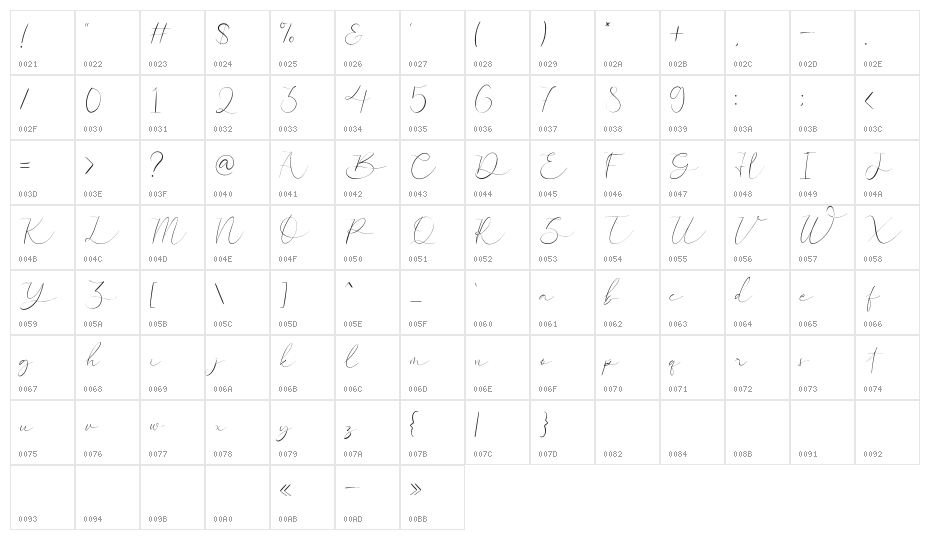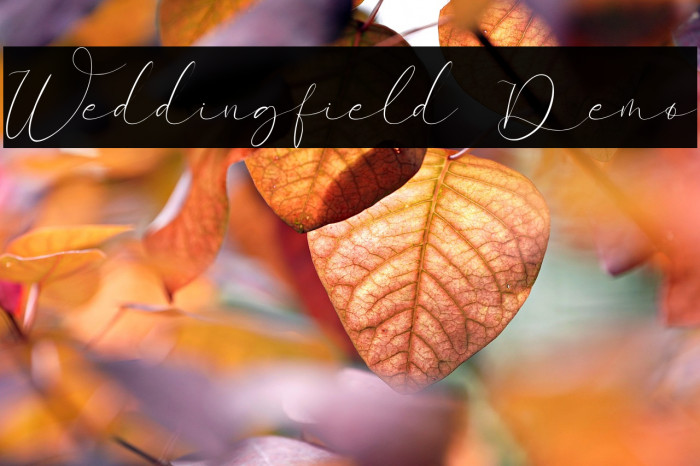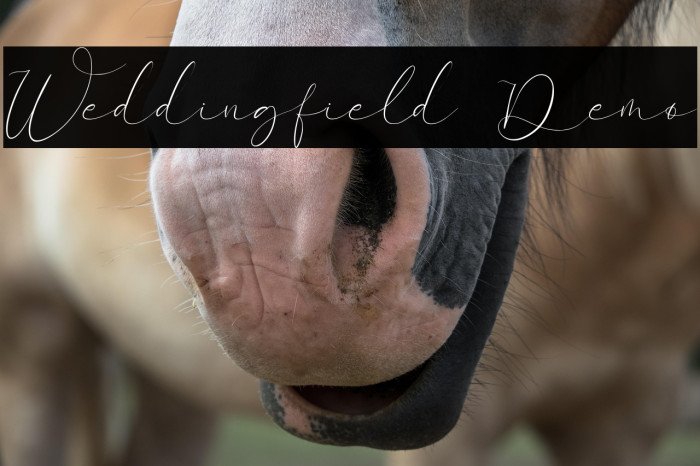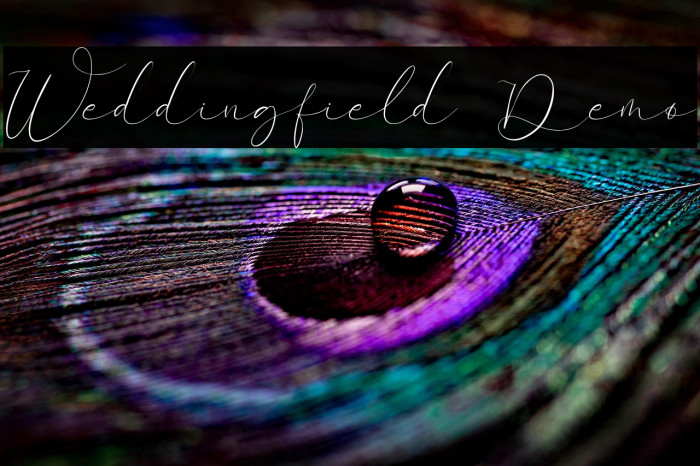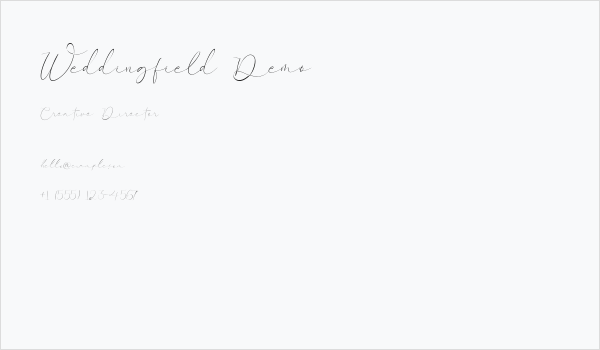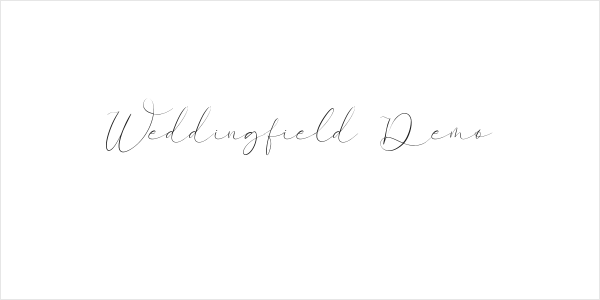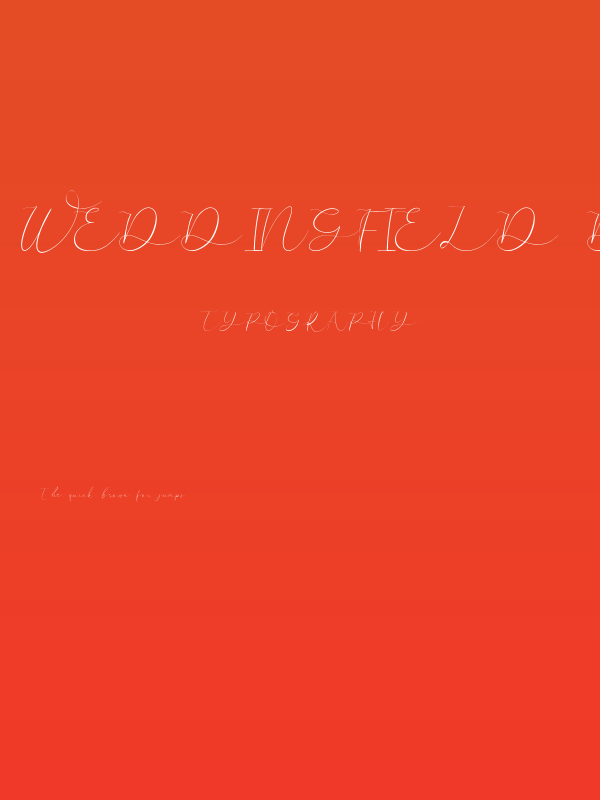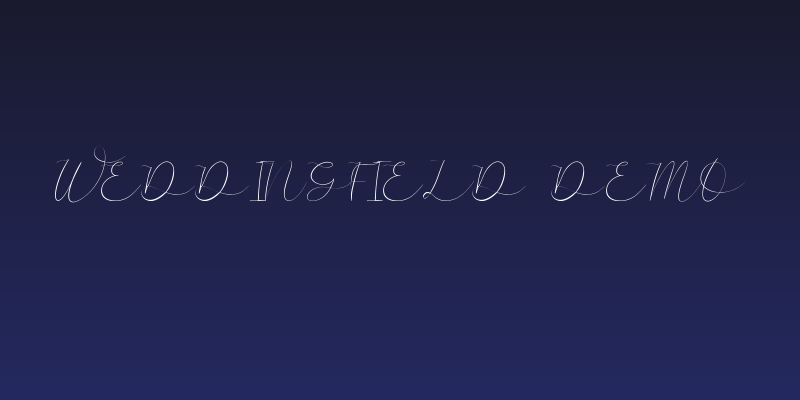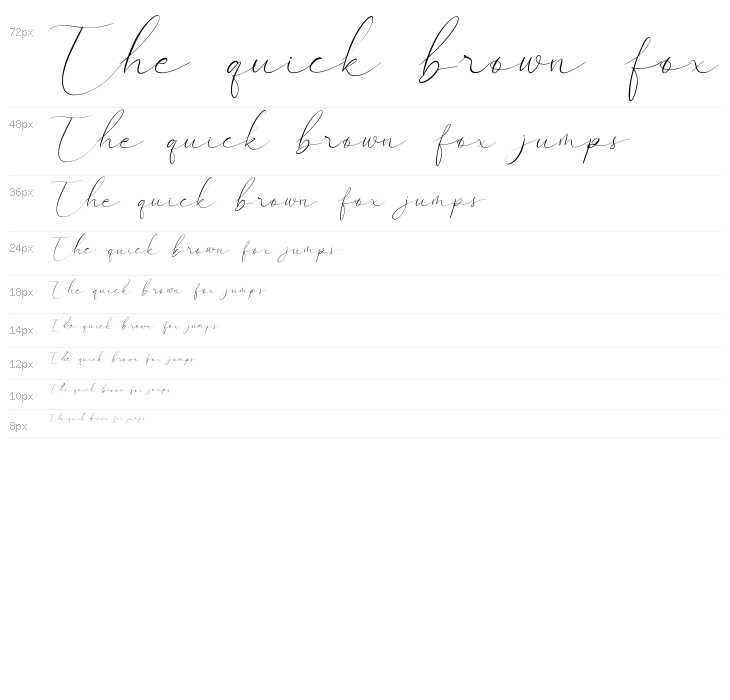
Weddingfield Demo Font
Weddingfield Demo Description
This elegant script font exudes a sense of sophistication and romance, characterized by its flowing, cursive letterforms. The uppercase letters are gracefully elongated, while the lowercase letters maintain a consistent, smooth flow. The numerals are distinct and stylish, complementing the overall aesthetic. Special characters are seamlessly integrated, enhancing the font's versatility. The delicate strokes and subtle curves make it ideal for formal occasions and elegant designs.
| Overall Style | Romantic, Elegant |
| Use Case | Headlines, Invitations, Logos |
| Proposed Projects | Ideal for wedding invitations, elegant branding, romantic greeting cards, and upscale packaging. |